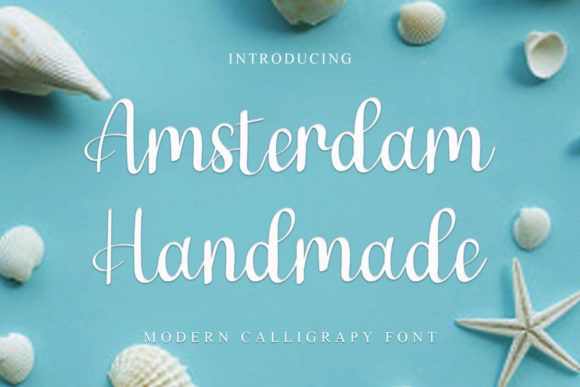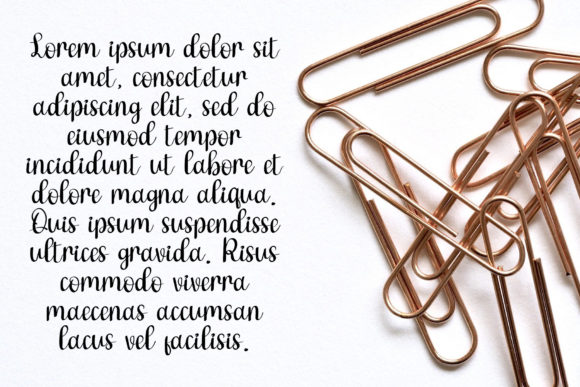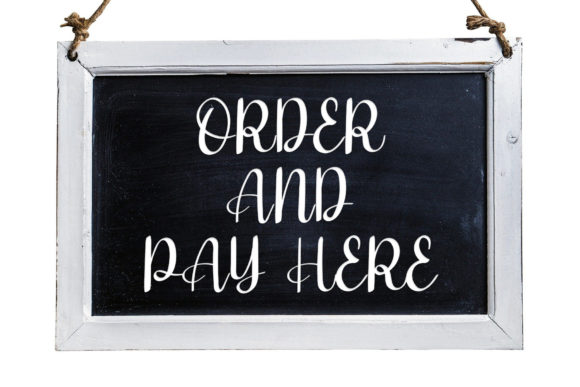
About Amsterdam Handmade Font
Amsterdam Handmade is an exquisite handwritten font, masterfully designed to become a true favorite. It maintains its classy calligraphic influences while feeling contemporary and fresh. Fall in love with it and bring your projects to the highest levels!